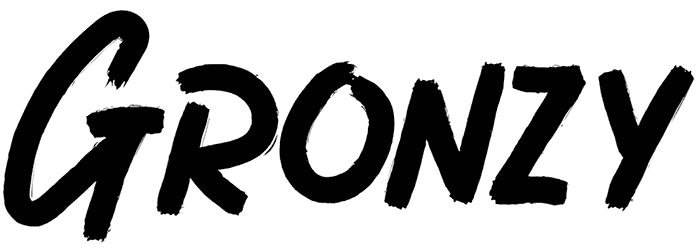
Gronzy Font
Gronzy is a brush script font conveying a natural hand-drawn element. If you are thinking to give your typography, a cool artistic, and modern look, this font will ensure that with its amazing italic style! The bold paintbrush characters give your project a friendly, and positive feel.
This specific brush font doesn’t include lower case alphabets, instead, it provides 2 unique sets of creative capitalized alphabets. Gronzy is brilliant for branding, posters, invitation packaging, and wherever you wish to add it.